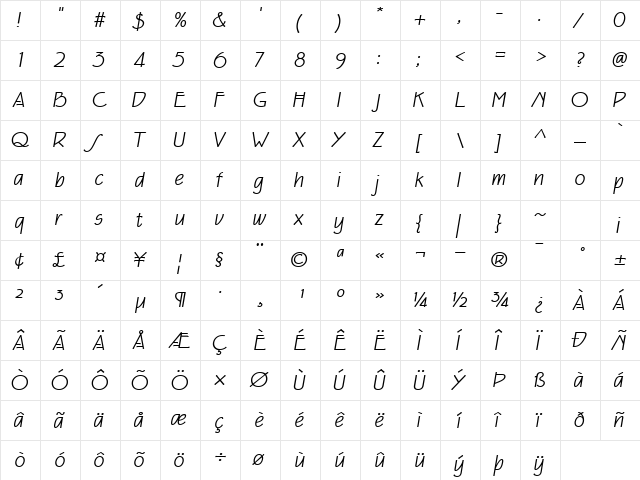
EaglefeatherFormalRegularIt Regular
Design Context for EaglefeatherFormalRegularIt Typeface
EaglefeatherFormalRegularIt is a composed and adaptable typeface that performs quietly and consistently across a wide range of design contexts.